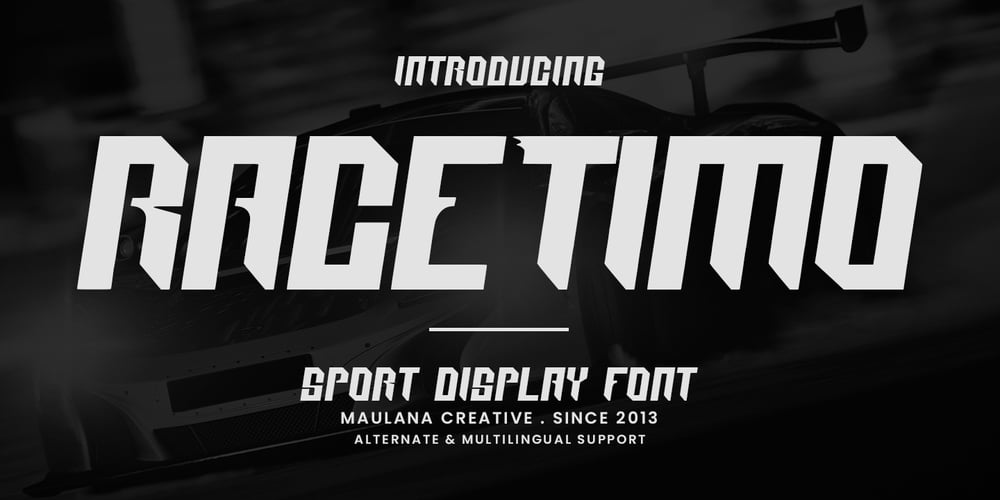
MC Race Timo Font Family was designed by Gilang Maulana and published by Maulana Creative. MC Race Timo contains 1 styles and family package options. Race Timo Sport Display Font. Regular stroke, fun character with a bit of ligatures and alternates. To give you an extra creative work. Race Timo font support multilingual more than 100+ language. This font is good for logo design, Social media, Movie Titles, Books Titles, a short text even a long text letter and good for your secondary text font with script or serif. Make a stunning work with Race Timo font.Cheers,Maulana Creative